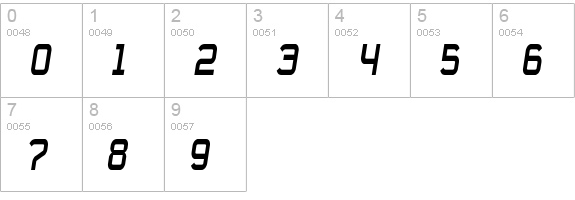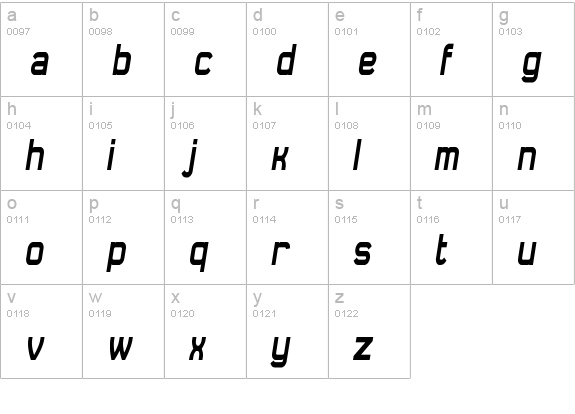
Daville Condensed Slanted Font Details
Daville Condensed Slanted is a distinctive, condensed-width variant in the Daville typeface family \xE2\x80\x94 well suited to design and typography projects.
Daville Condensed Slanted font is a sleek and modern typeface that exudes elegance and sophistication. Its condensed design makes it perfect for adding a touch of style to any project, while the slanted emphasis adds a dynamic and contemporary feel. This font is versatile and can be used for a wide range of design applications, from branding and advertising to editorial and web design. The best part? Daville Condensed Slanted font is available for free download at FontsMarket.com. Now you can elevate your designs with this stunning font without breaking the bank. Don't miss out on the opportunity to enhance your projects with the unique charm of Daville Condensed Slanted font – download it for free today!